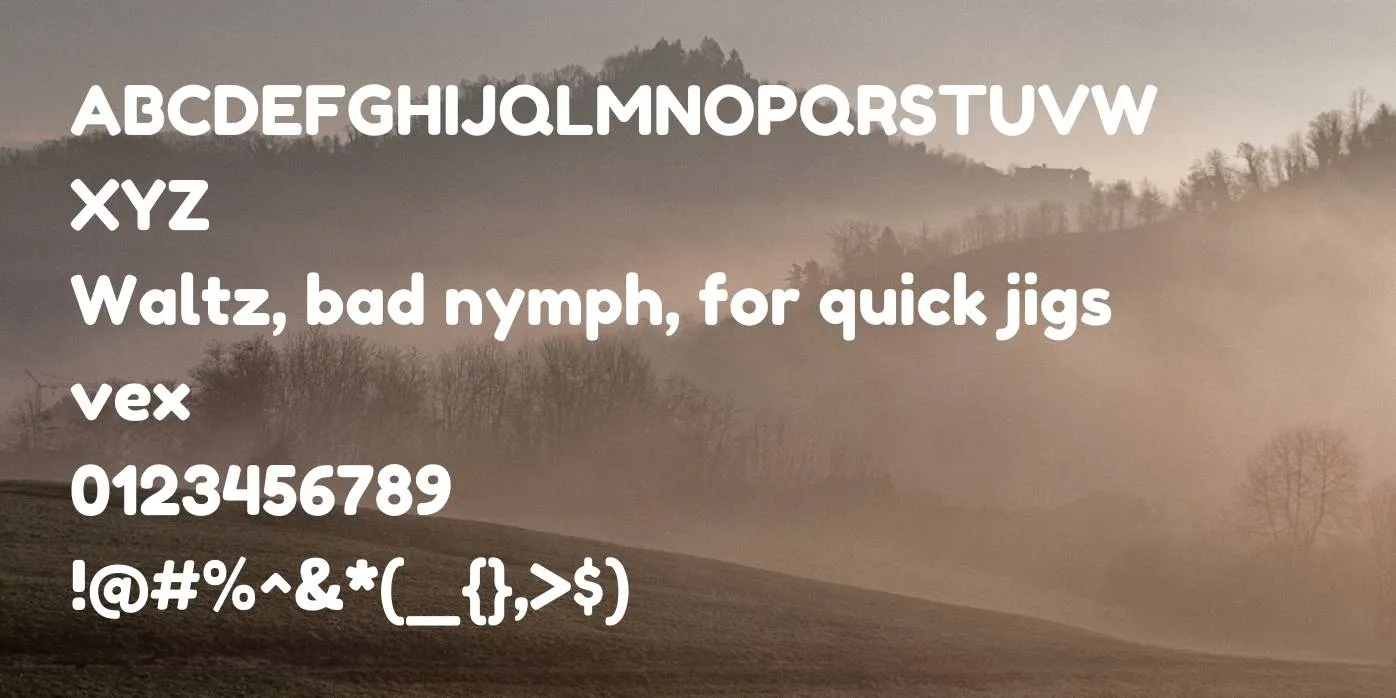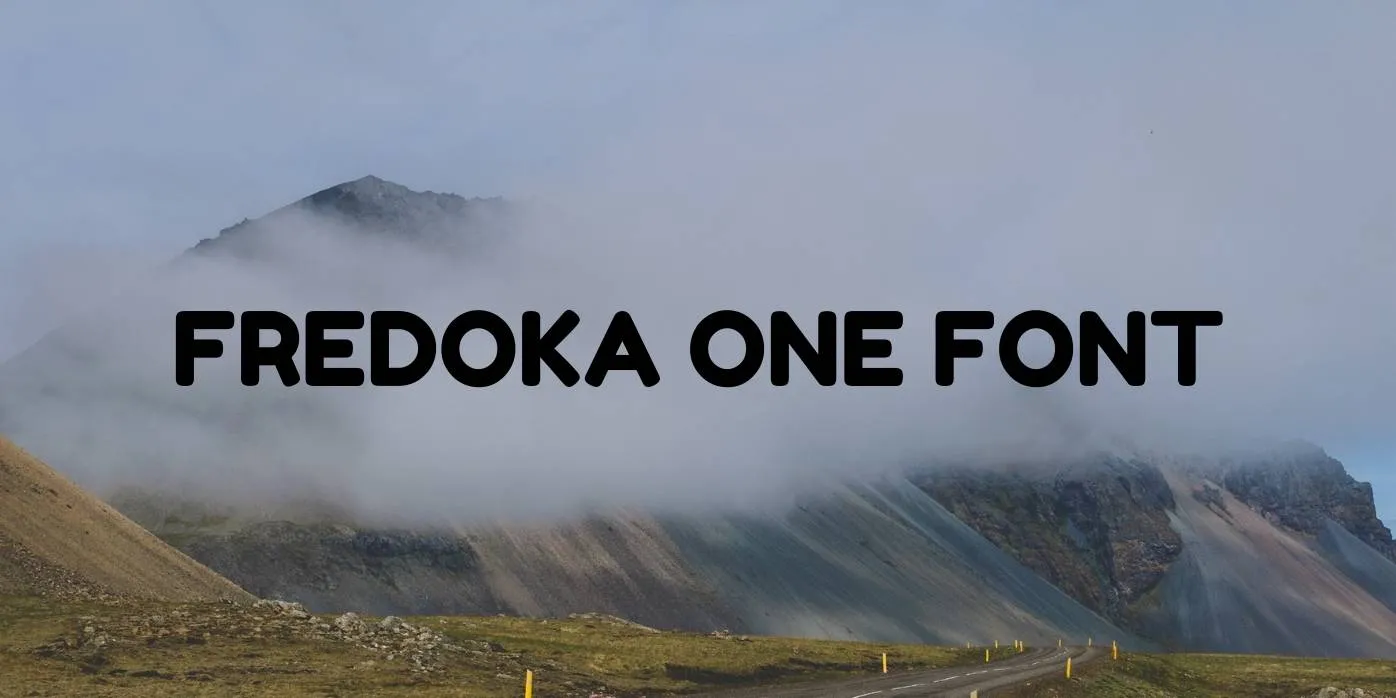
Fredoka One Font
Introducing the playful typeface with a beautiful fun style and sprightly dingbat feature that is Fredoka Font. This outstanding typeface was designed by Milena Brandao and it has both TTF and OTF features. The font family is free for commercial use. This beautiful typeface has unique glyphs includes Uppercase and Lowercase letters, Numbers and Numerals, and some mandatory symbols also.
While its one of the special things is that it has beautiful playful dingbats like Rat, Fish, Apple, Bird, Umbrella, Clouds, Leafs, Fish Aquarium, Thunder, and many more amazing things. It is a very advantageous typeface for both screen or web-based projects due to its beautiful smooth edges characters and playful condensed texture. You may also generate this typeface by an online generator tool immediately even without downloading.  Usage The font family is very productive for making immense designs on CSS (Cascading style sheet), Adobe Illustrator, and many other designing software as well.
Its unique characters and beautiful dingbats are very worthwhile for printing and digital projects. It may provide the best features with the combination of Liquid font and you can make many creative designs with the help of this typeface. It can also be utilized in Minimal Logos, Vintage Logos, Trademark Logos, Fun Logos and much more. A digital artist may get immense advantages with this typeface in his Artworks, Designs, Posters, banners, Pamphlets, Flyers, Sign Boards, Book Covers, Magazines Covers, and so on.
Who designed the Fredoka One Font? This is a playful typeface with a beautiful fun style and sprightly dingbat feature characters. This outstanding typeface was designed by Milena Brandao. Is Fredoka One Font good for logo?
Due to its special smooth glyphs and unique textual, it is the best font for Logo designs and playful logos. This is the evidence of its pretty cool characters with eye-catchy dingbats.